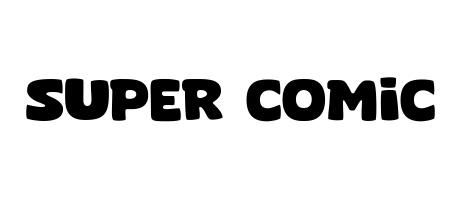
Super Comic
Super Comic is a bold, playful display font. Its rounded, cartoonish letterforms evoke a sense of fun and energy, reminiscent of comic book lettering. The weight is heavy, ensuring high readability even at smaller sizes. The slightly uneven letter heights add to its hand-drawn charm.